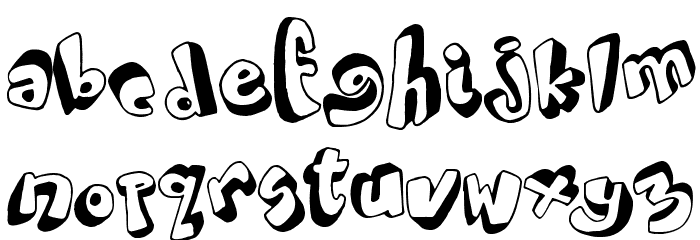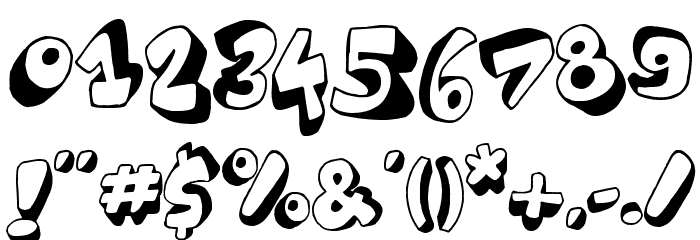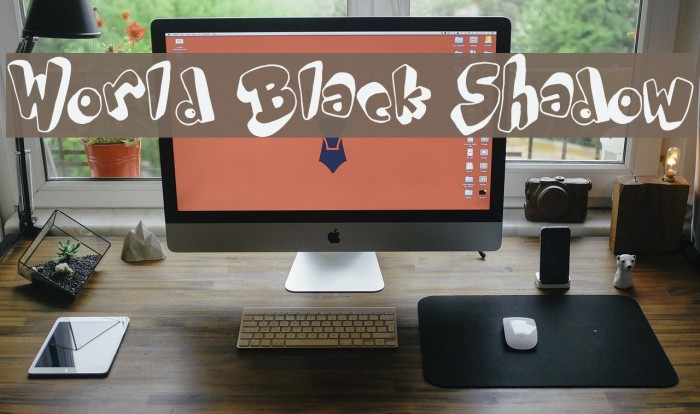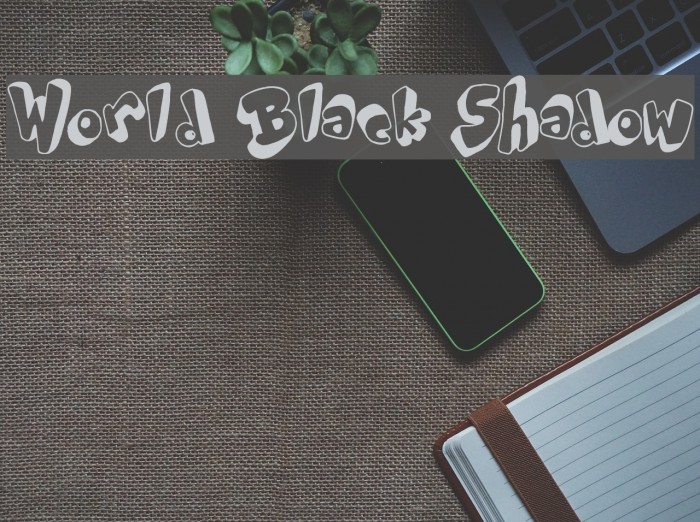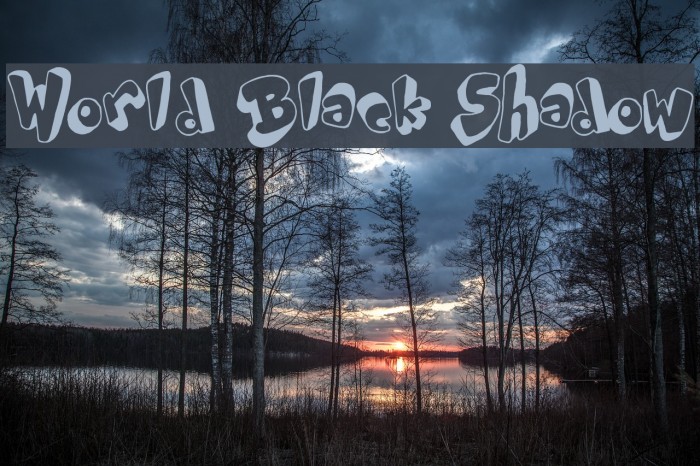
World Black Shadow Font
This playful and bold font features a unique shadow effect that gives each character a three-dimensional appearance. The letters are rounded and slightly irregular, adding a whimsical and dynamic feel. The bold strokes are complemented by a contrasting shadow, creating a sense of depth and movement. This font is highly decorative, making it ideal for eye-catching designs. The characters are well-spaced, ensuring readability while maintaining their quirky style. The font includes a full set of uppercase and lowercase letters, numbers, and a variety of special characters, making it versatile for various creative projects.
A bold, playful font with a unique shadow effect and rounded, irregular characters.
- Proposed Projects: Ideal for children's book covers, playful posters, party invitations, and creative branding.
- Overall Style: Playful, Decorative